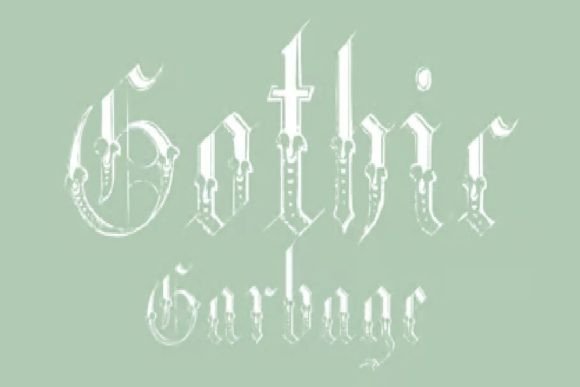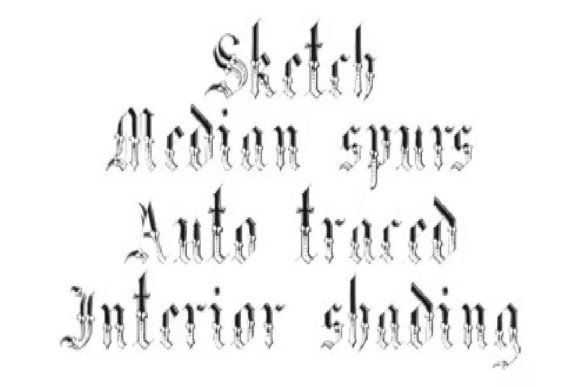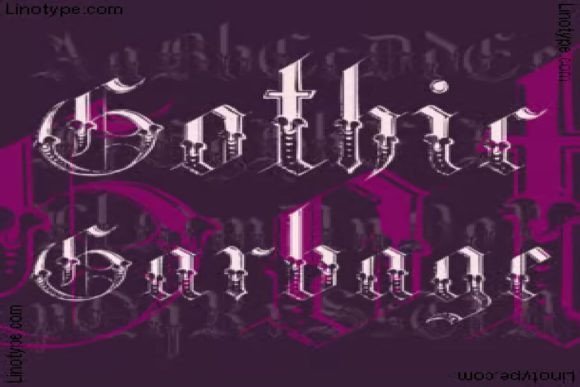
Gothic Garbage Font
About the Gothic Garbage Font
Explore the possibilities with Gothic Garbage Font, a font that offers both beauty and functionality. A grunge blackletter.
Gothic Garbage Font is ideally suited for headlines, posters, and branding projects requiring a strong, rebellious aesthetic. Its grunge texture works particularly well in conveying a raw, edgy feel, perfect for music, streetwear, or alternative brands. Avoid using it for body text or UI elements; its low readability makes it unsuitable for large amounts of text.
This font’s core personality is bold and aggressive. To balance its intensity, pair it with a clean sans-serif like Futura or a more neutral serif like Garamond for contrast. A minimalist geometric sans-serif could also work, creating a striking juxtaposition of styles.
For a softer contrast, consider pairing with a slightly distressed script font for projects needing a more vintage or handcrafted touch. Avoid pairing it with other highly decorative or ornate fonts which would clash with its rough texture.